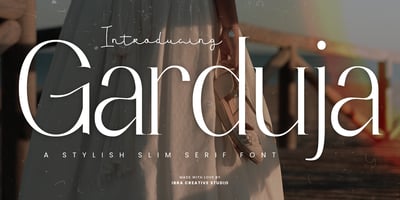
Garduja Font Family was designed by Roisatul Azizah and published by IbraCreative. Garduja contains 1 styles and family package options. Garduja, a stylish slim serif font, effortlessly blends sophistication with modern aesthetics, creating a typographic masterpiece that captivates the eye. Its slender and refined letterforms exude a timeless elegance, while subtle serifs add a touch of classic charm. Garduja strikes the perfect balance between readability and artistic flair, making it an ideal choice for projects that demand a polished and contemporary design. The font’s graceful curves and precise detailing contribute to its overall sleek appearance, ensuring a distinctive and memorable presence in both print and digital applications. With Garduja, every character embodies a harmonious fusion of tradition and innovation, offering a visually striking and versatile option for designers seeking a tastefully sleek serif typeface.Garduja is perfect for branding projects, logo, wedding designs, social media posts, advertisements, product packaging, product designs, label, photography, watermark, invitation, stationery, game, fashion and any projects.Fonts include multilingual support for; Afrikaans, Albanian, Czech, Danish, Dutch, English, Estonian, Finnish, French, German, Hungarian, Italian, Latvian, Lithuanian, Norwegian, Polish, Portuguese, Slovak, Slovenian, Spanish, Swedish.